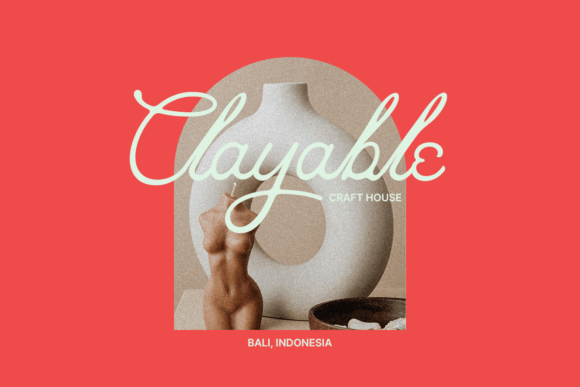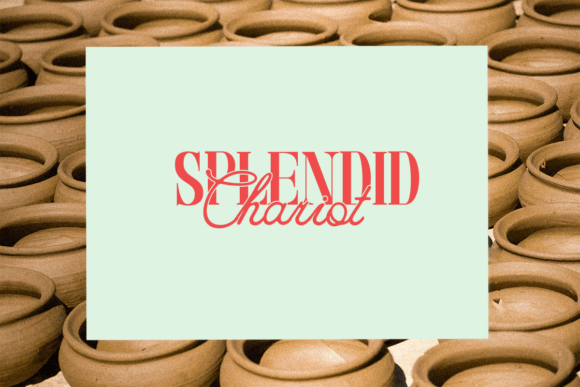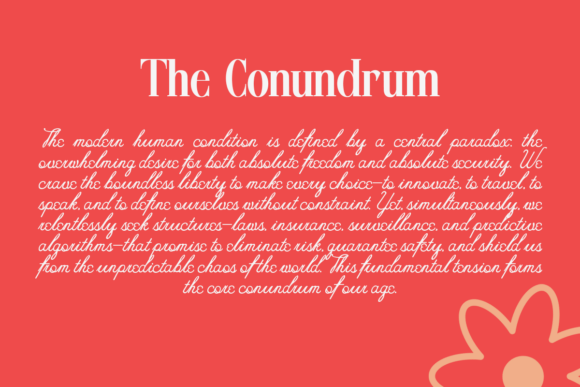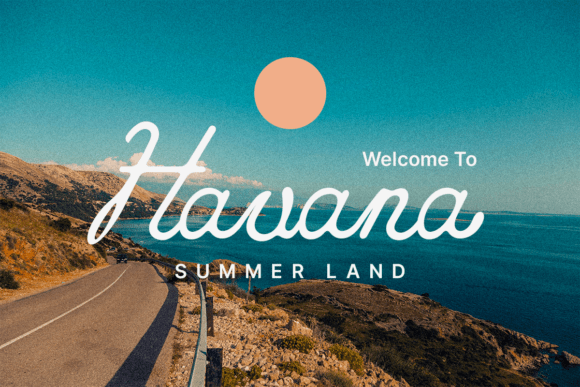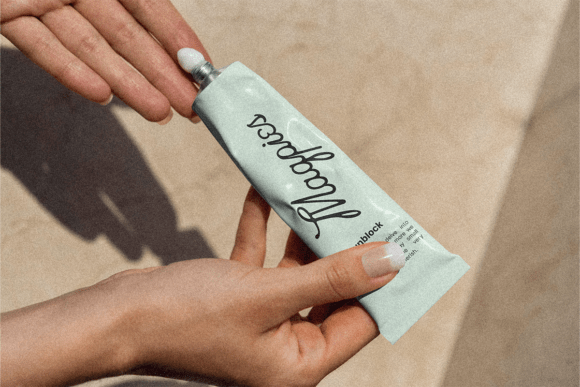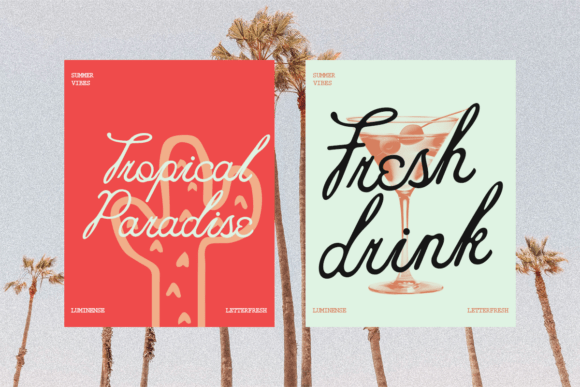
Introduction to Luminense Duo Font
Have you ever stared at a blank canvas, feeling the urge to create something truly special? As designers, we’ve all been there – searching for the perfect font to bring our vision to life. It’s a moment of excitement and anticipation, where the right choice can make all the difference. For those who crave a timeless and sophisticated look, the Luminense Duo Font is about to become your new best friend.
This captivating blend of script and serif fonts offers a unique aesthetic that elevates any design project. Whether you’re working on a high-quality branding campaign or crafting a beautiful editorial layout, the Luminense Duo Font is an exceptional design resource that will transport your visuals to new heights.
With its versatility and refined charm, the Luminense Duo Font is an invaluable addition to any designer’s toolkit. From transparent background designs to creative projects that demand a touch of sophistication, this font duo is sure to inspire stunning results and leave a lasting impression.
Key Features of Luminense Duo Font
- Includes two unique font styles, perfect for adding visual interest to your design
- Features a transparent background, allowing for seamless integration into your design
- Designed with a high resolution of 300 DPI, ensuring crisp and clear text in both digital and print applications
- Perfect for designers looking for a unique and creative design element for their next project
Honest Review: Luminense Duo Font
I recently had the chance to work with the Luminense Duo Font and I must say it’s been a great addition to my design resource library. This high-quality font is perfect for any creative project that requires a unique and eye-catching typography.
- ✨ The font comes in two styles, allowing for a lot of flexibility in design. This is particularly useful when creating contrast between headings and body text.
- ✨ The transparent background makes it easy to use this font in a variety of design scenarios, from website headers to print materials.
- ⚠️ The font may not be as versatile as some other options, particularly for projects that require a lot of customization.
Overall, I’m really impressed with the Luminense Duo Font. It’s a solid choice for designers looking for a high-quality, free font that can add some personality to their creative projects.
The Luminense Duo Font is a high-quality design resource ideal for creative projects. This versatile font features a transparent background, making it easy to integrate into various designs.
Tips for Getting the Most Out of Luminense Duo Font
To get the most out of the Luminense Duo Font, experiment with different font sizes, colors, and styles to create visually appealing designs.
The Luminense Duo Font is ideal for various creative projects, including:
1. Branding and logo design.
2. Print materials and brochures.
3. Digital
Can I customize the Luminense Duo Font to fit my design needs?
Yes, the Luminense Duo Font is highly customizable. You can adjust the font’s size, color, and spacing to fit your design needs. Additionally, you can use the font in combination with other design elements, such as images and graphics, to create a unique and visually appealing design.